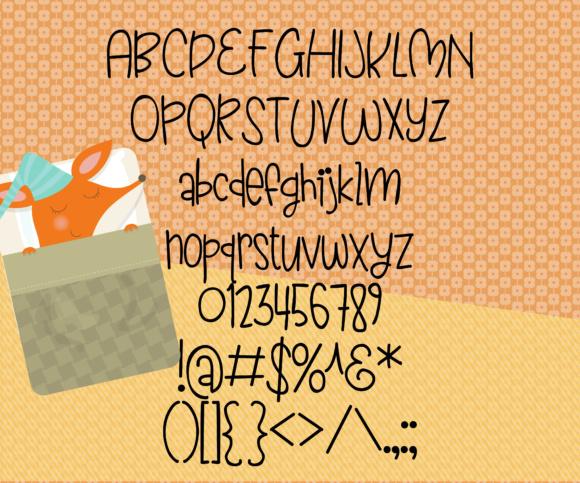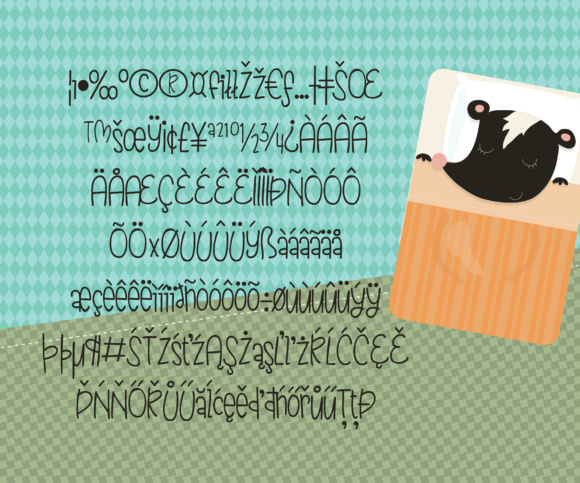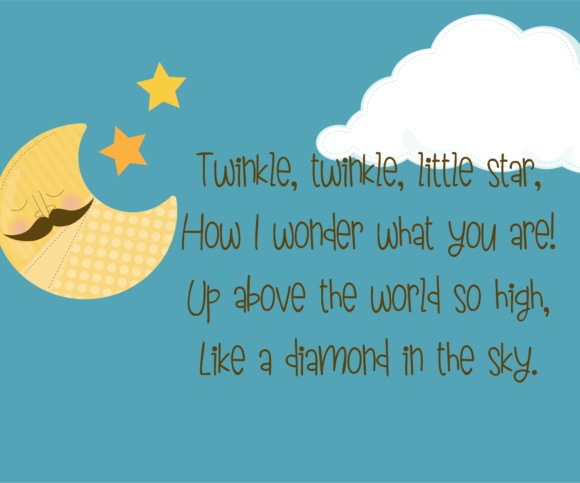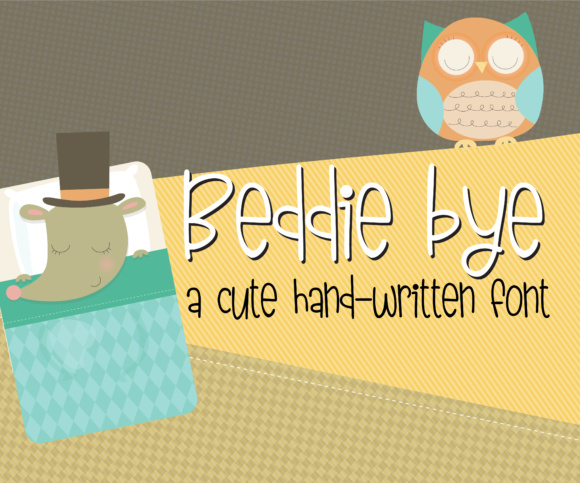
Introducing Beddie Bye Font: Add Whimsy and Charm to Your Designs
Are you looking for a font that can add a touch of playfulness and charm to your designs? Look no further than Beddie Bye, a youthful and handwritten font that’s perfect for a variety of projects. With its bouncy appeal and high legibility, Beddie Bye is an excellent choice for designers and crafters who want to add some personality to their work.
The Characteristics of Beddie Bye Font
Beddie Bye is a unique and eye-catching font that’s characterized by its handwritten and whimsical feel. The font has a bouncy appeal that makes it perfect for designs that require a playful and youthful touch. The letters are carefully crafted to be highly legible, making it suitable for use in body text as well as headlines.
Why Choose Beddie Bye Font?
There are many reasons why Beddie Bye font stands out from the rest. Here are just a few:
- Unique and Whimsical: Beddie Bye has a one-of-a-kind, handwritten feel that’s sure to make your designs stand out.
- Highly Legible: The font is carefully crafted to be easy to read, making it perfect for use in body text as well as headlines.
- Versatile: Beddie Bye can be used in a variety of projects, from digital designs to print materials.
- Youthful and Playful: The font has a bouncy appeal that’s perfect for designs that require a youthful and playful touch.
Uses for Beddie Bye Font
Beddie Bye font is versatile and can be used in a variety of projects, including:
- Digital Designs: Use Beddie Bye in your website designs, social media graphics, and email newsletters to add a touch of whimsy and charm.
- Print Materials: The font is perfect for use in print materials such as brochures, flyers, and posters.
- Crafting and Scrapbooking: Beddie Bye is a great choice for crafters and scrapbookers who want to add a personal touch to their projects.
- Branding and Packaging: Use the font to create unique and eye-catching branding and packaging materials.
Tips for Using Beddie Bye Font
Here are a few tips for getting the most out of Beddie Bye font:
- Use it in Combination with Other Fonts: Beddie Bye pairs well with other fonts, so don’t be afraid to experiment with different combinations.
- Play with Size and Color: The font looks great in a variety of sizes and colors, so experiment to find the perfect look for your design.
- Use it to Add Emphasis: Beddie Bye is perfect for adding emphasis to certain words or phrases in your design.
Beddie Bye font is a unique and eye-catching font that’s perfect for designers and crafters who want to add a touch of whimsy and charm to their work. With its bouncy appeal and high legibility, it’s an excellent choice for a variety of projects. Whether you’re working on digital designs, print materials, or crafting and scrapbooking projects, Beddie Bye is sure to make your designs stand out.